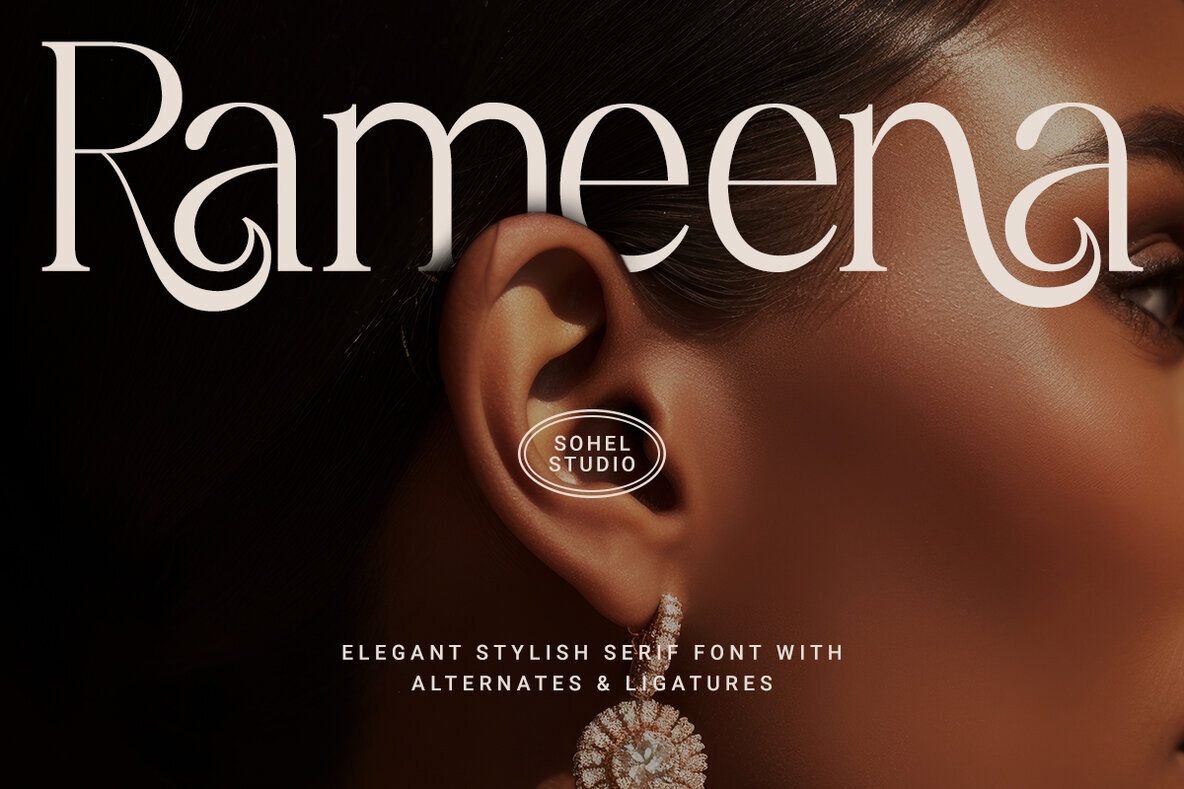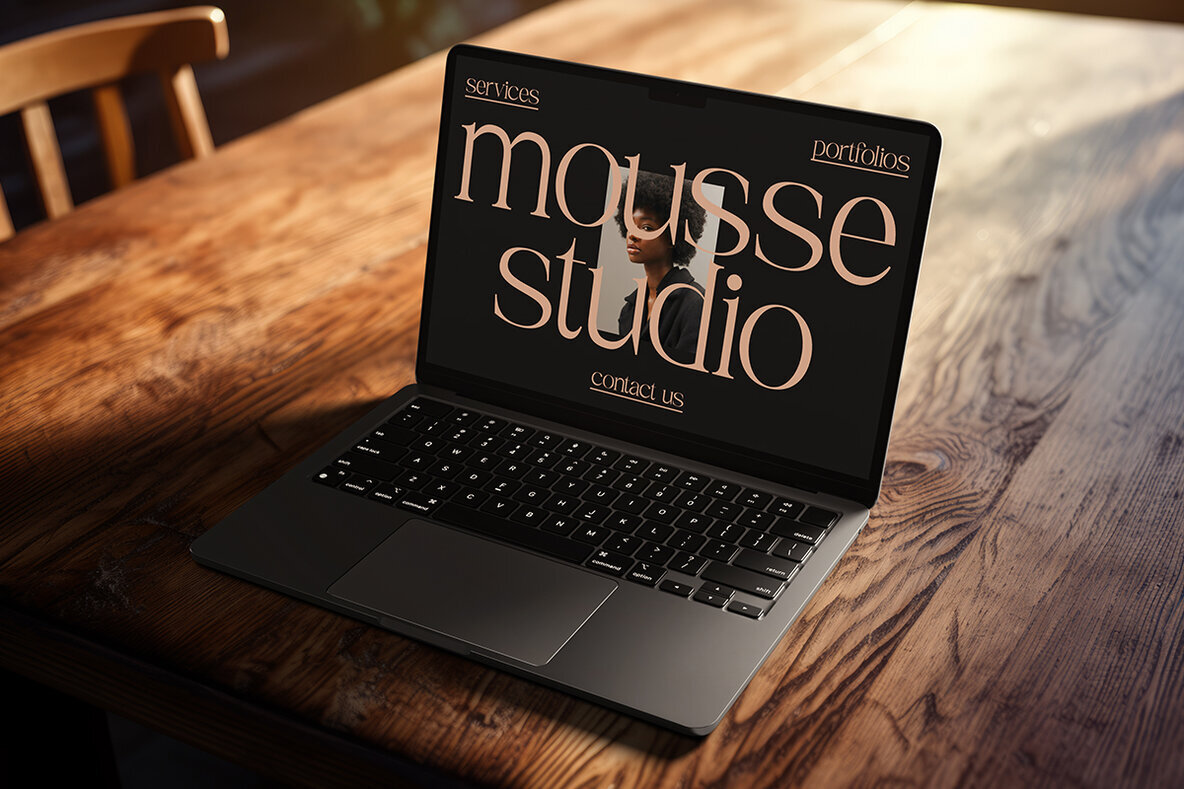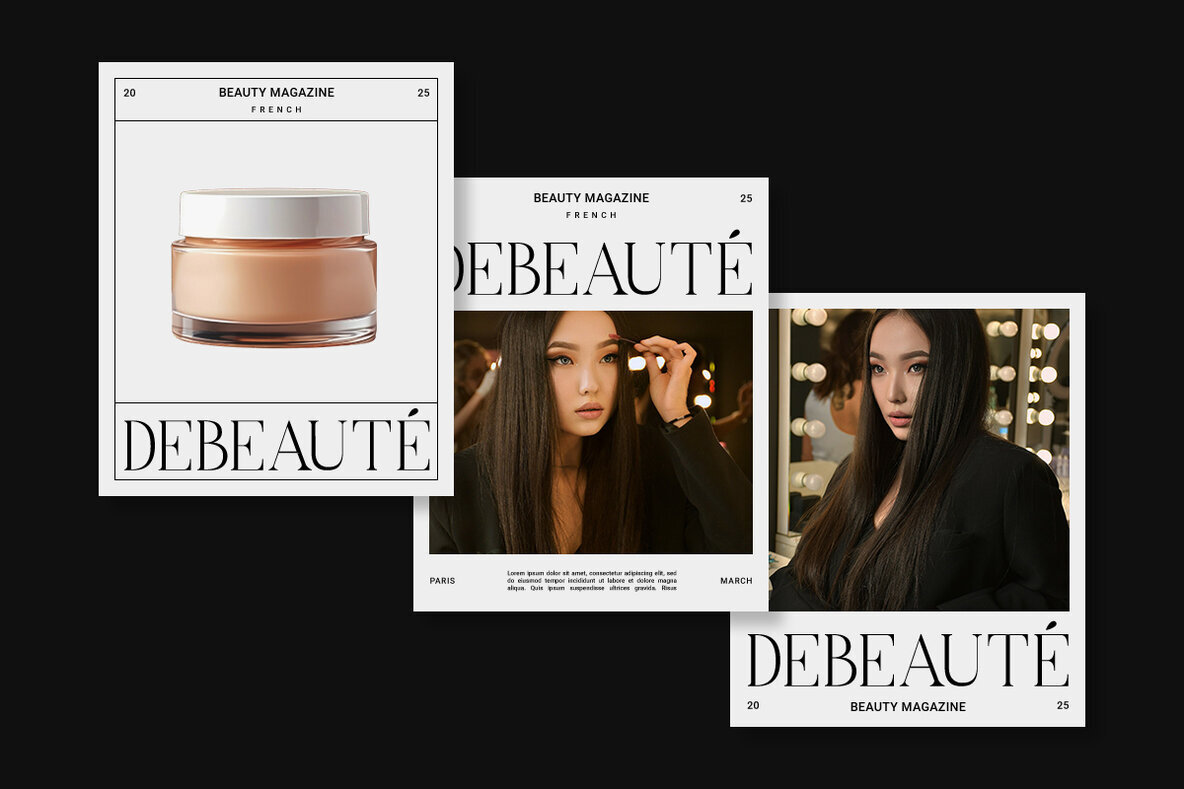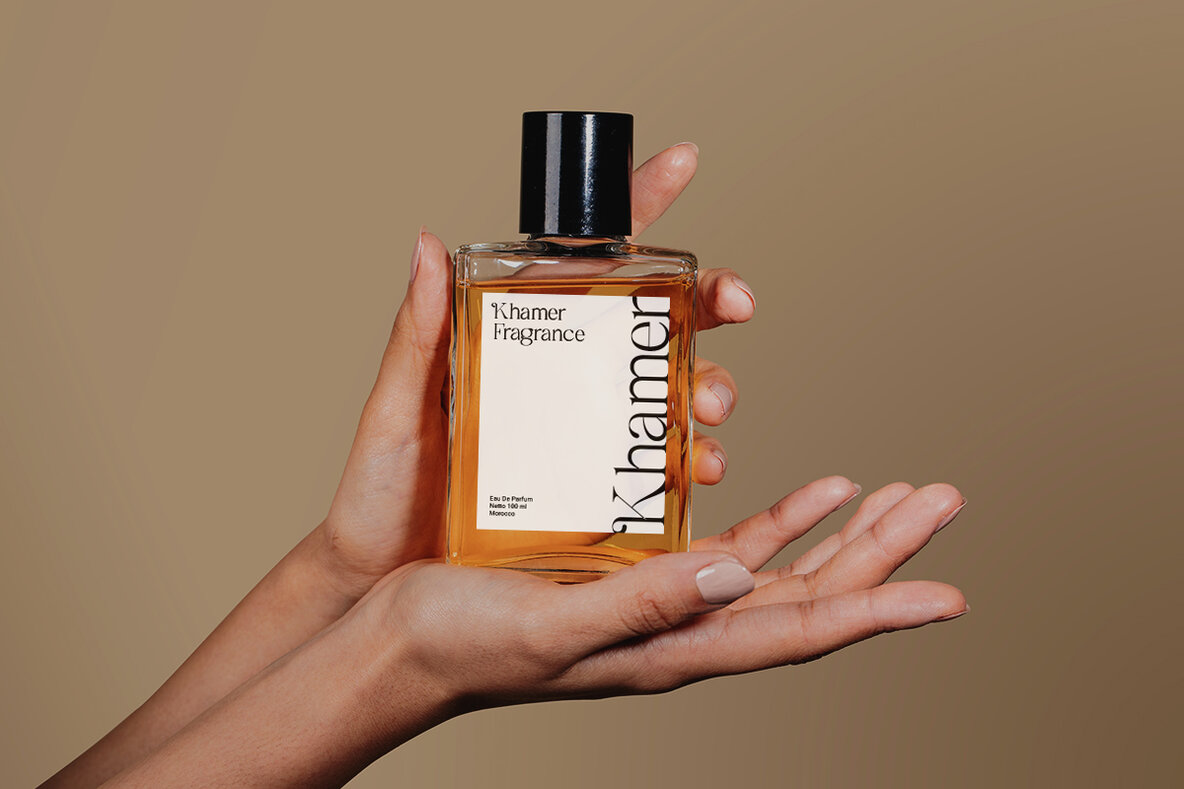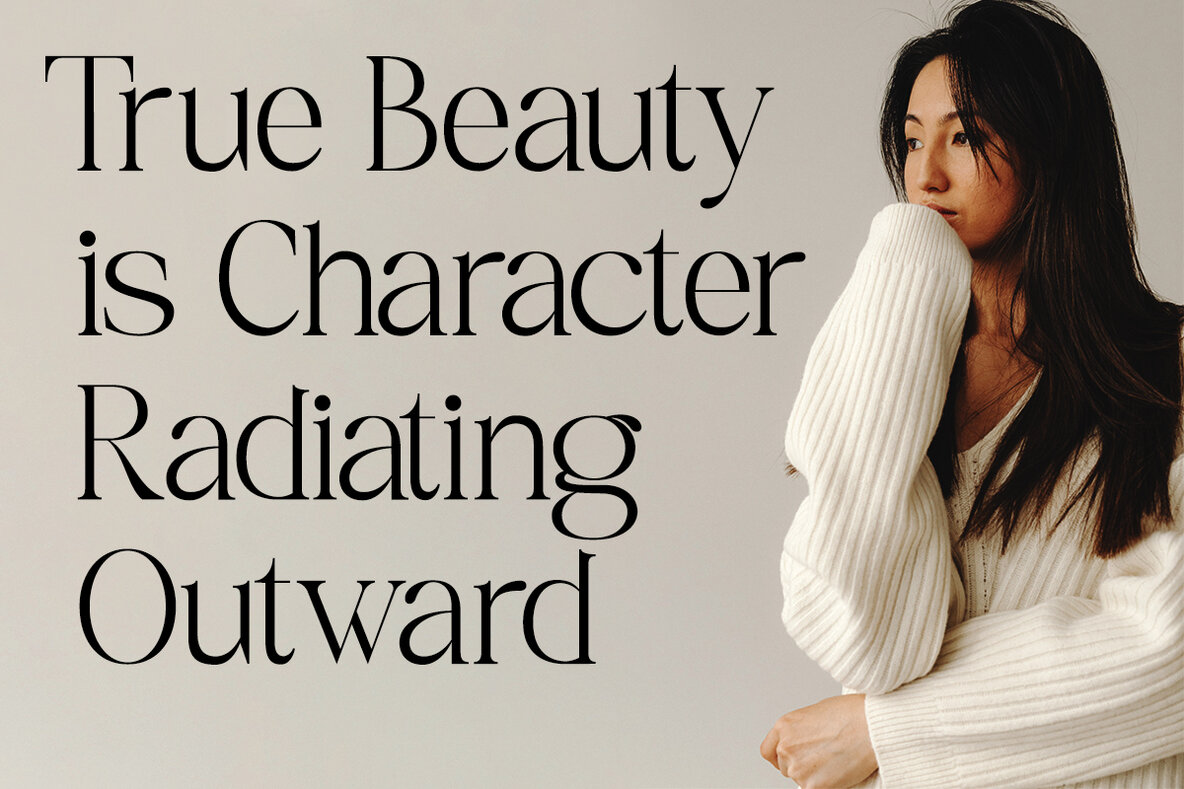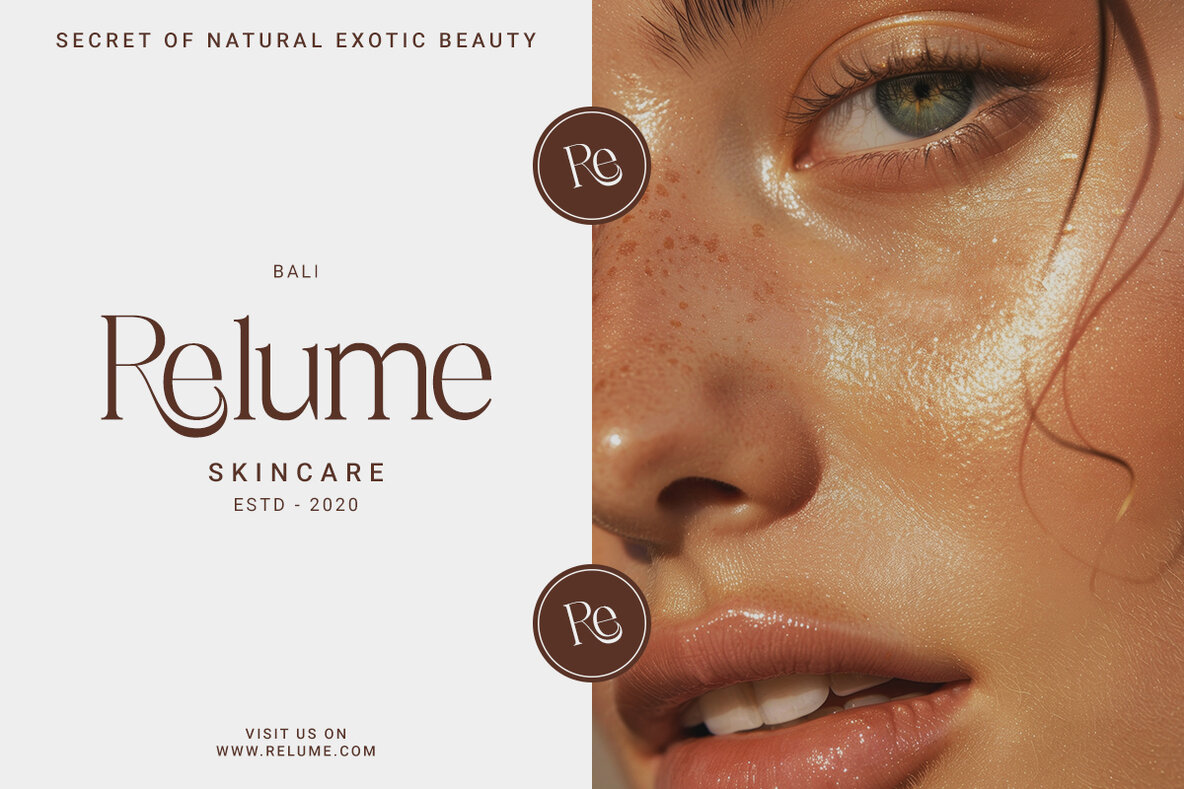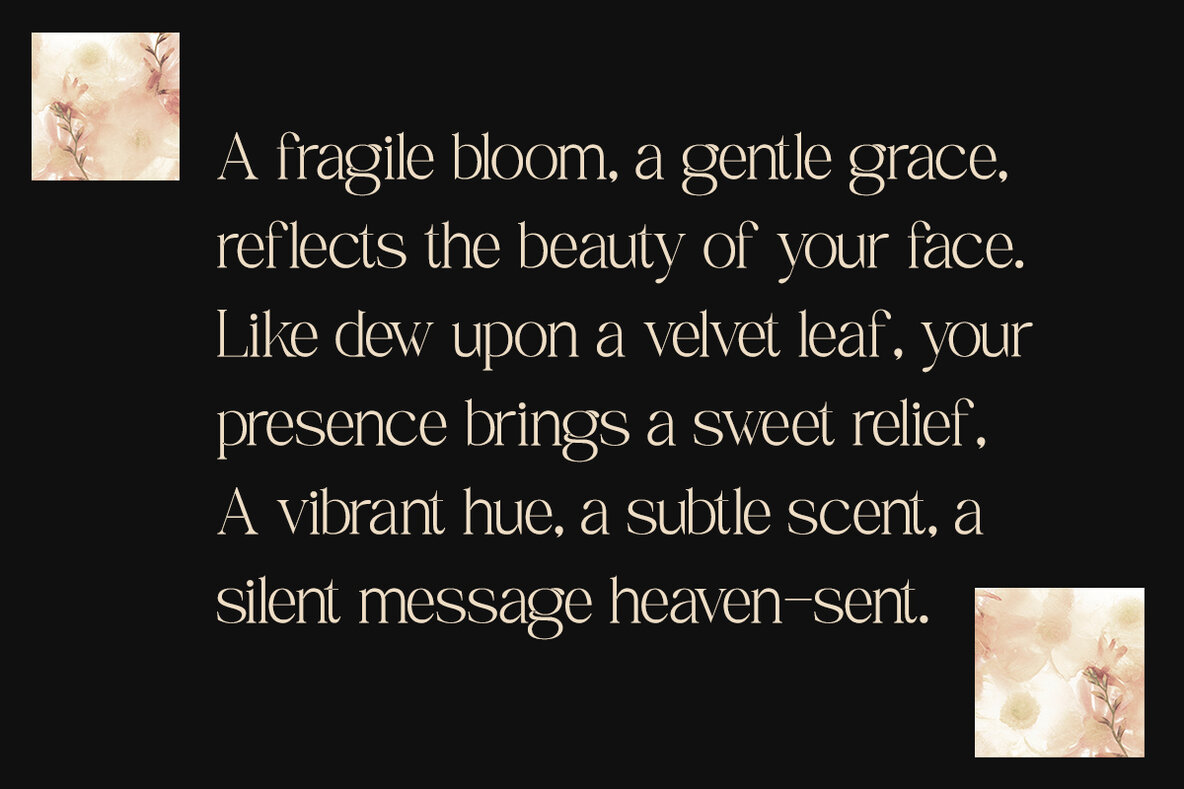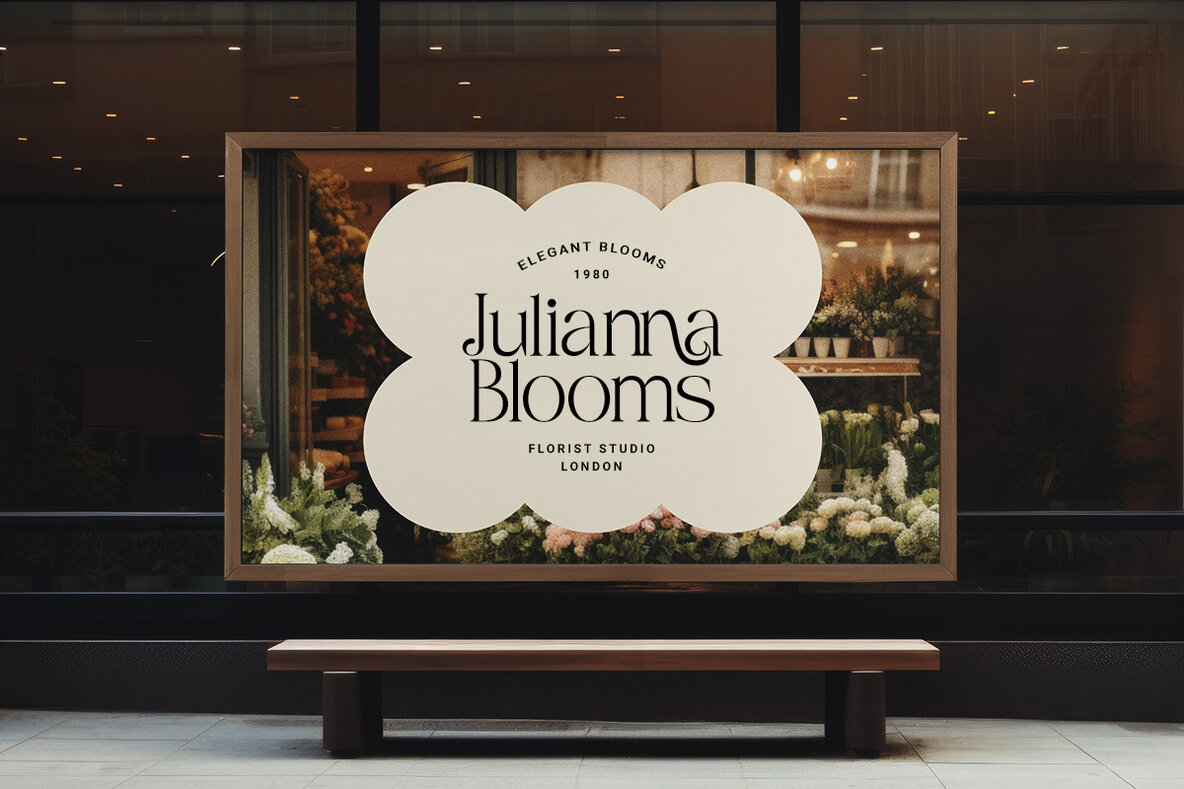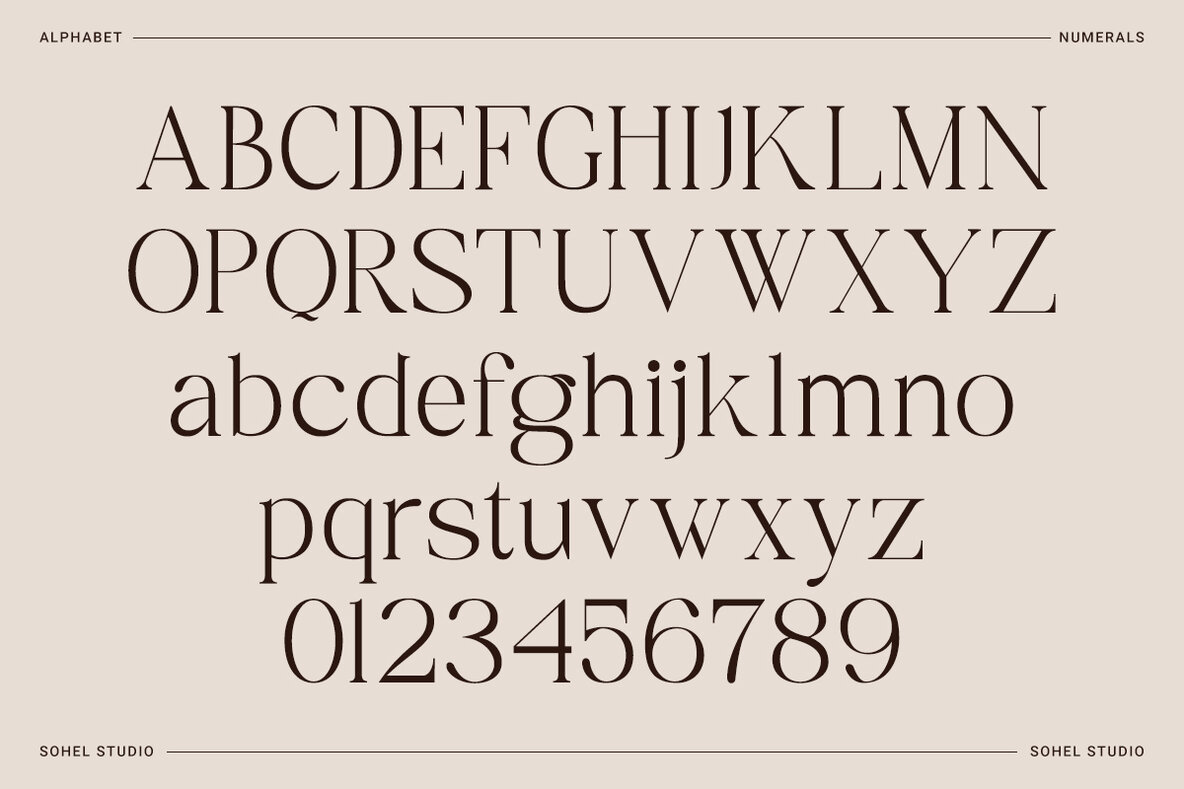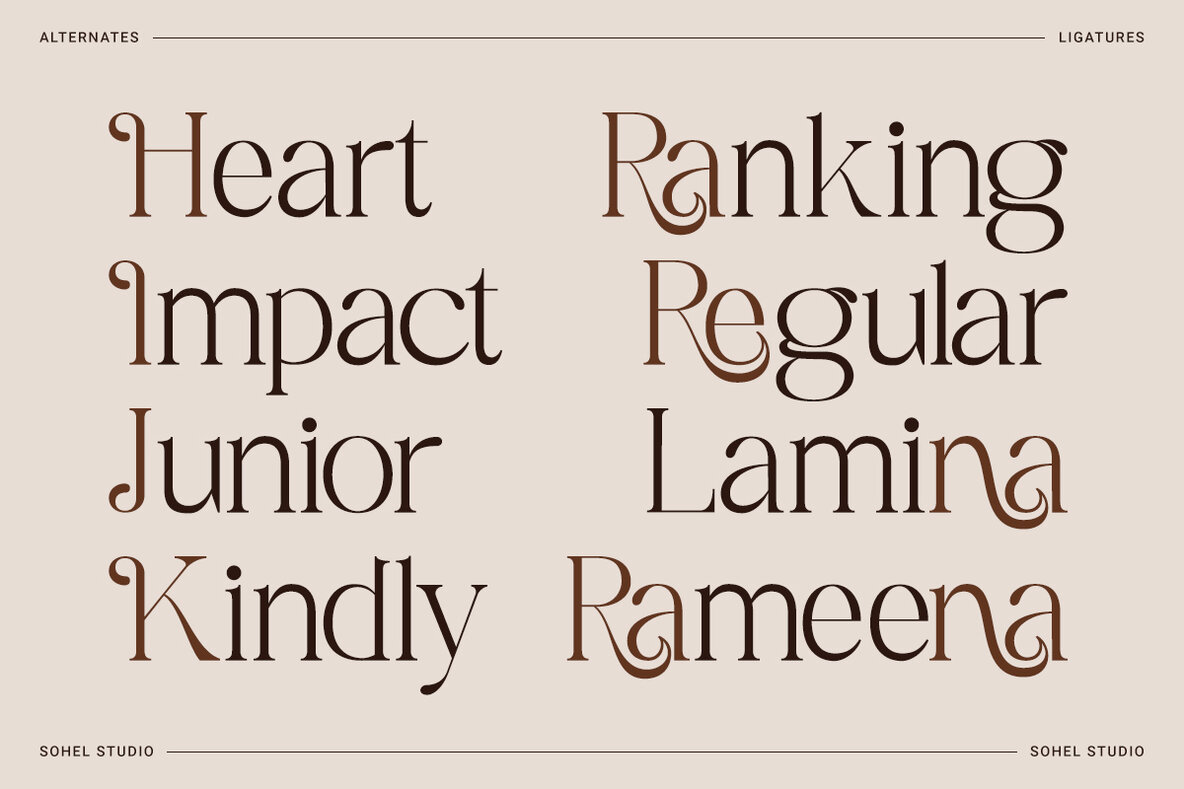
Rameena Font
Rameena Regular
Rameena stands as a modern serif font that melds timeless elegance with contemporary nuances. Designed with intricate details, it brings a sense of luxury and professionalism to any project. Whether you're working on branding, editorials, packaging, or wedding invitations, Rameena adapts seamlessly to creative needs. With a range of alternates and ligatures, Rameena facilitates the creation of unique and personalized designs effortlessly. This sophistication becomes an asset to designers seeking to inject elegance into their work.Rameena: A Modern Serif Font of Timeless Elegance
Rameena Features